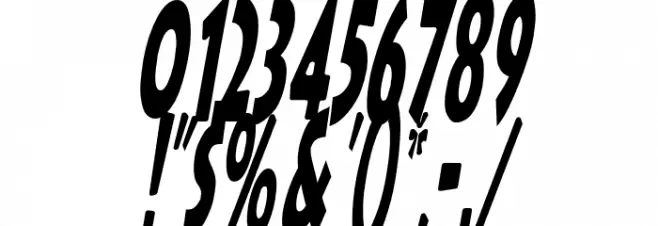
LithoComix Italic Font
LithoComix Italic Description
This font features a bold and dynamic italic style with a strong forward slant, giving it a sense of movement and energy. The characters are thick and robust, with a slightly condensed form that enhances their impactful appearance. The uppercase and lowercase letters maintain a consistent style, with sharp angles and clean lines that contribute to a modern and assertive look. The numerals and special characters are equally bold, ensuring readability and uniformity across all text. This font's unique style makes it suitable for projects that require a striking and memorable visual impact.
A bold, italic font with a dynamic slant and strong presence from Uncategorized fonts.
- Proposed Projects: Ideal for comic book titles, posters, branding, and any design requiring a bold statement.